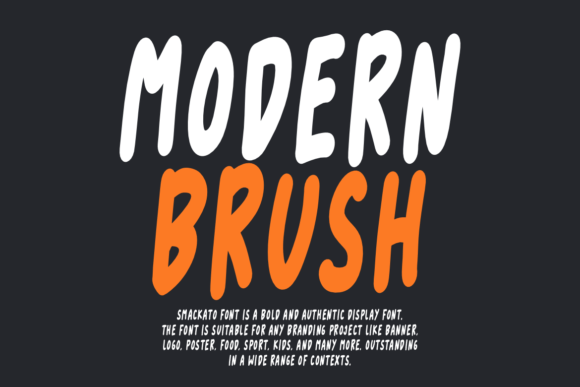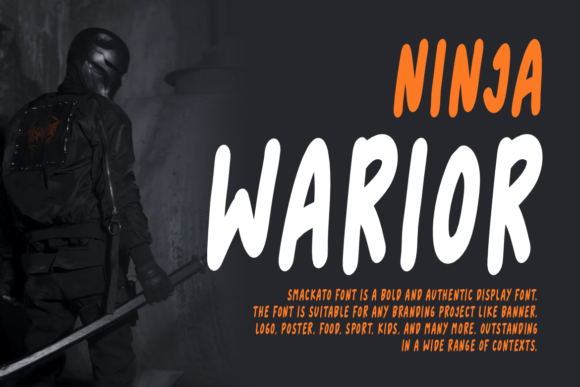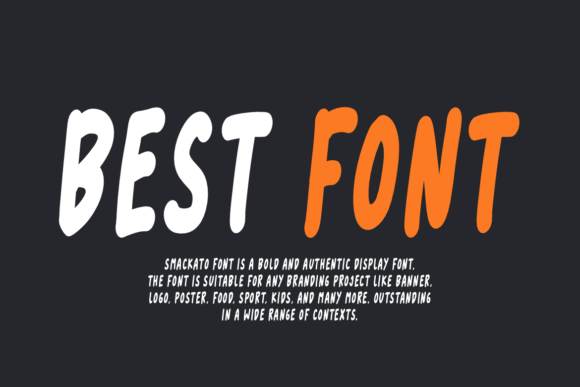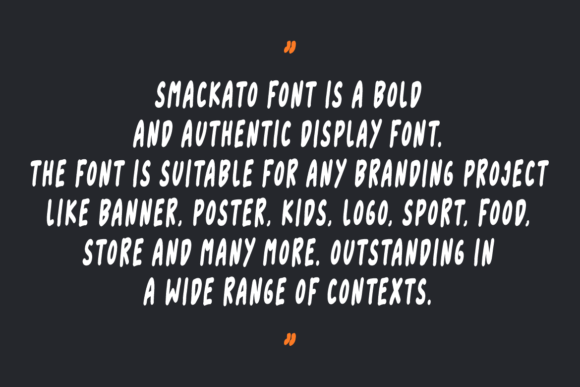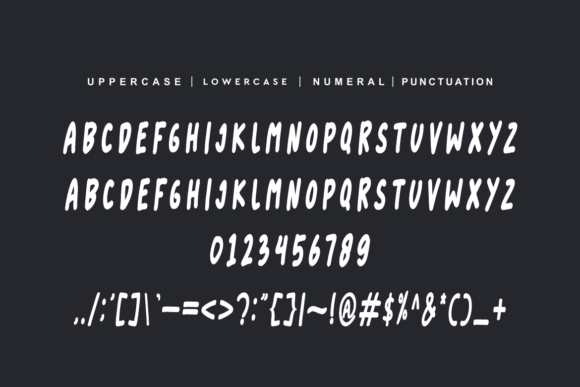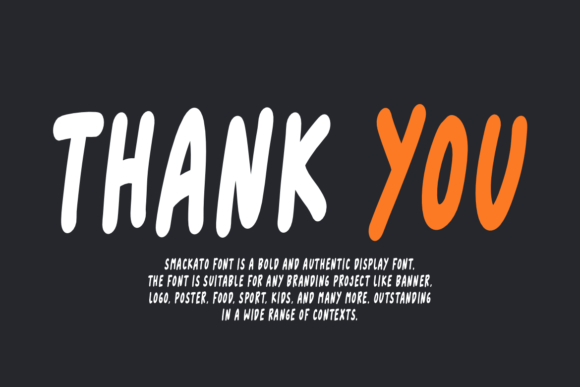
Introduction to Smackato Font
Have you ever stared at a blank canvas, waiting for inspiration to strike? That’s exactly what happened to me the other day while working on a creative project. I was brainstorming ideas for a new design, and suddenly, I had an epiphany. I needed a bold, eye-catching font that would make my project stand out. That’s when I stumbled upon the Smackato Font – a game-changer for any designer looking to add a touch of trendiness to their work.
As a valuable design resource, the Smackato Font is perfect for crafting, digital designing, presentations, or even making greeting cards. Its unique, handwritten style is sure to grab attention and leave a lasting impression. With its high-quality design and transparent background, you can use it on any project, from social media graphics to print materials. And the best part? It’s available for free download, making it an essential addition to any designer’s toolkit.
Key Features of Smackato Font
- Features a unique, modern design with a high level of detail, making it an excellent design resource.
- Designed to be highly legible, even at small font sizes, making it perfect for creative projects requiring clear typography.
Honest Review: Smackato Font
I recently had the opportunity to work with the Smackato Font, and I must say it’s been a game-changer for my creative project. As a designer, I’m always on the lookout for high-quality design resources that can elevate my work, and Smackato Font definitely delivers.
One of the standout features of Smackato Font is its versatility. With a wide range of styles and weights, I was able to use it for everything from headings to body text, and it looked great every time. The transparent background option was also a huge plus, as it allowed me to easily layer it over images and other design elements.
Here are some of the things that work well with Smackato Font:
- High-quality design that looks great at any size
- Wide range of styles and weights for versatility
As with any design resource, there are some limitations to consider:
- Not as extensive a character set as some other fonts
- Some users may find the font too bold or eye-catching
Overall, I’m really impressed with the Smackato Font. It’s a great addition to any designer’s toolkit, and I’ve already started using it in several of my projects. If you’re looking for a high-quality, versatile font that’s easy to use, I highly recommend giving it a try.
Tips for Getting the Most Out of Smackato Font
Experiment with different font sizes, colors, and styles to get the most out of the Smackato Font. Use it in combination with other design elements, such as graphics and images, to create visually appealing designs.
The Smackato Font is suitable for various creative projects, including social media graphics, presentations, posters, and more. It’s a great design resource for anyone looking for a high-quality font with a transparent background.
Alternatives to Smackato Font
Pacifico Font is a beautiful and elegant script font that features a transparent background, making it perfect for designers who want to create a clean and minimalist design. It’s a great design resource for any creative project that requires a touch of elegance. When to use: Use Pacifico Font for branding, packaging, or any project that needs a sophisticated and refined feel. Comparison to Smackato Font: While Smackato Font is more casual, Pacifico Font is more formal and suitable for a wider range of design projects.